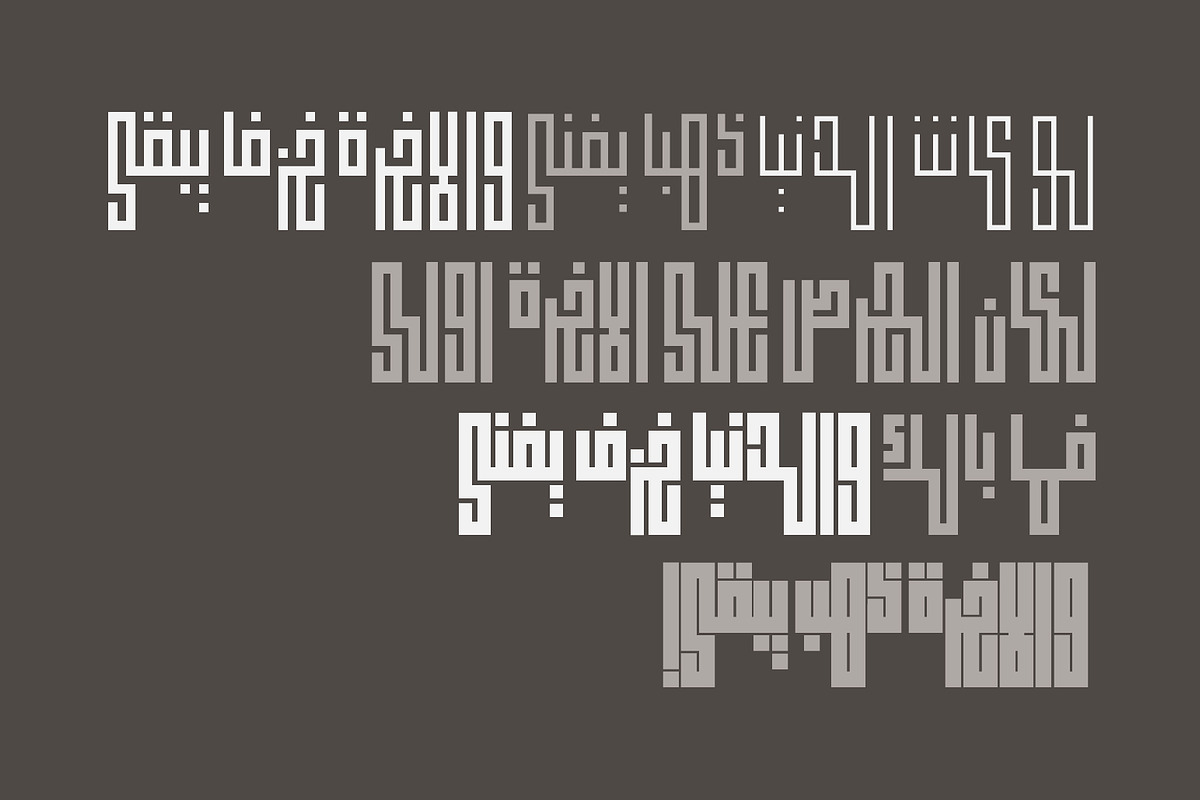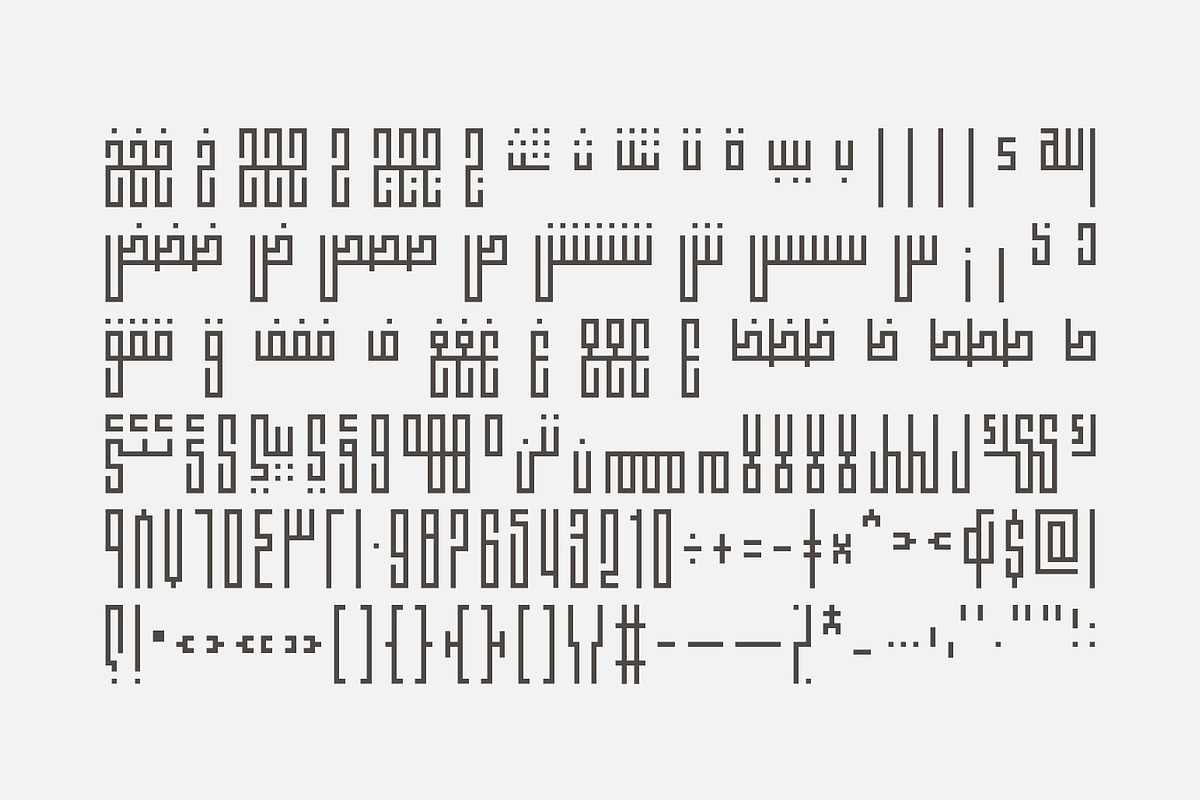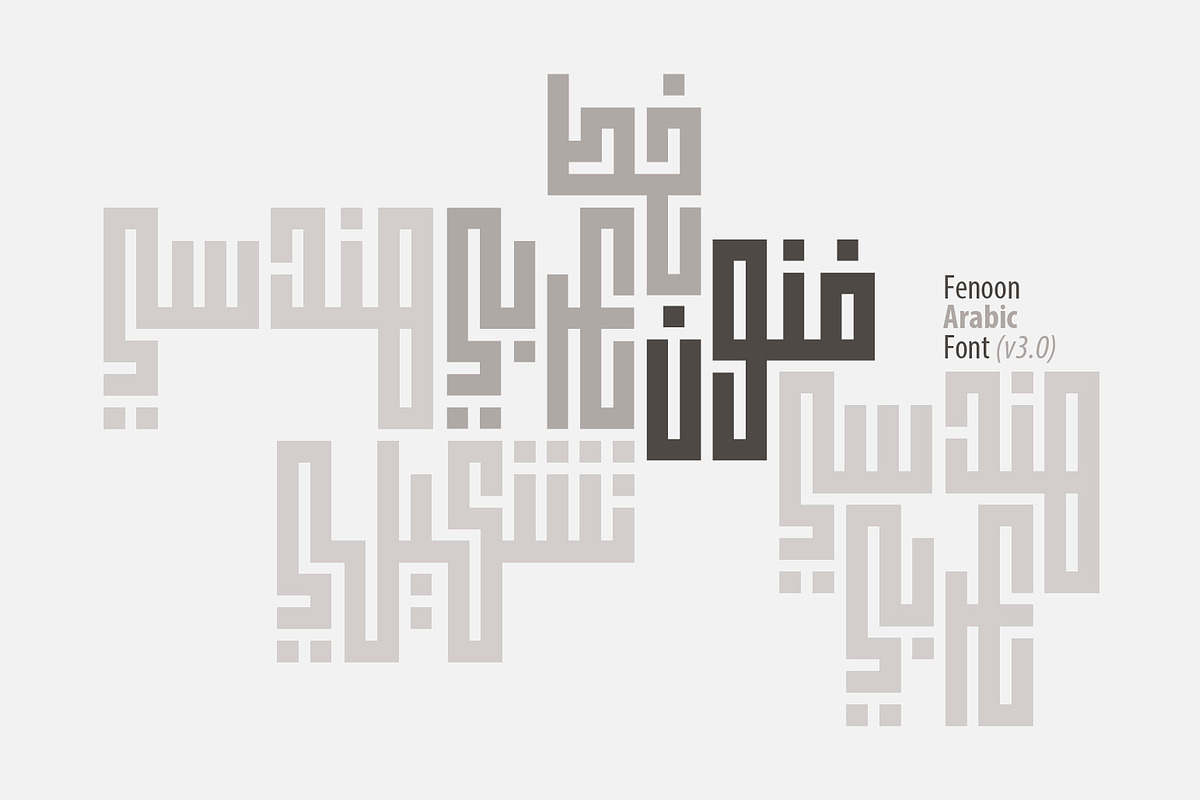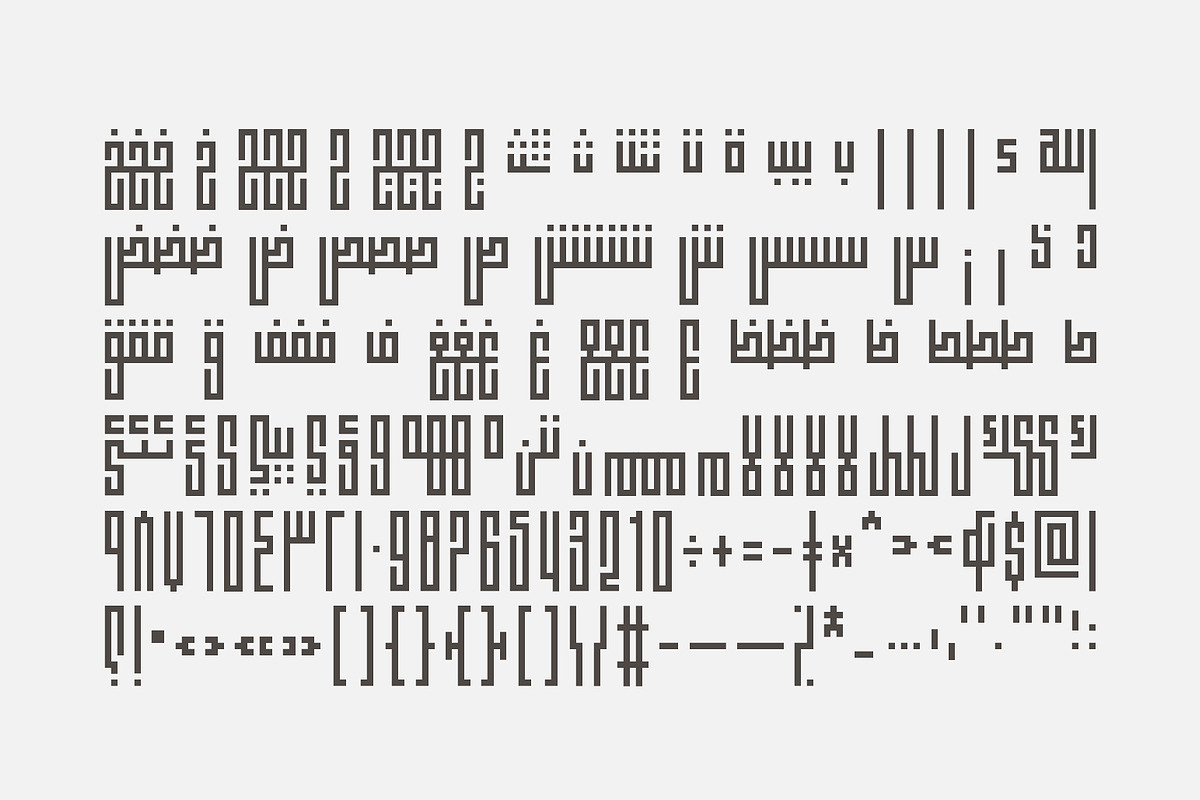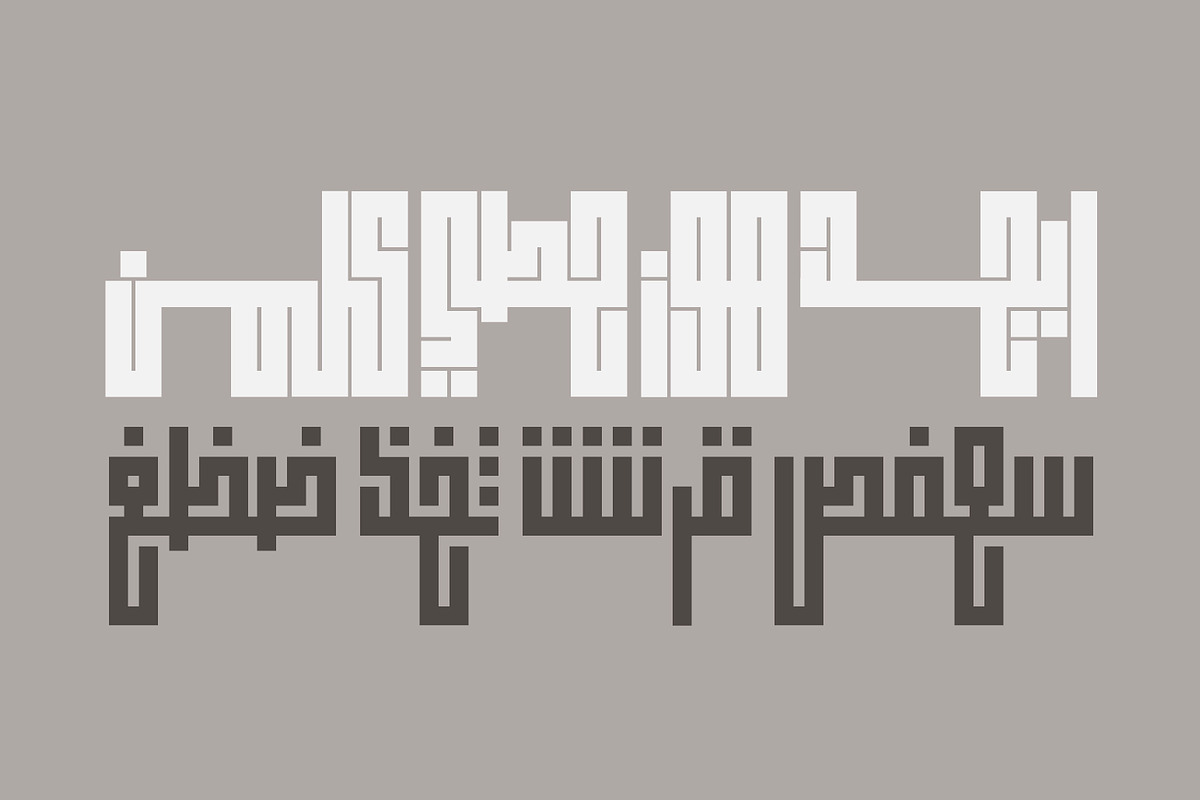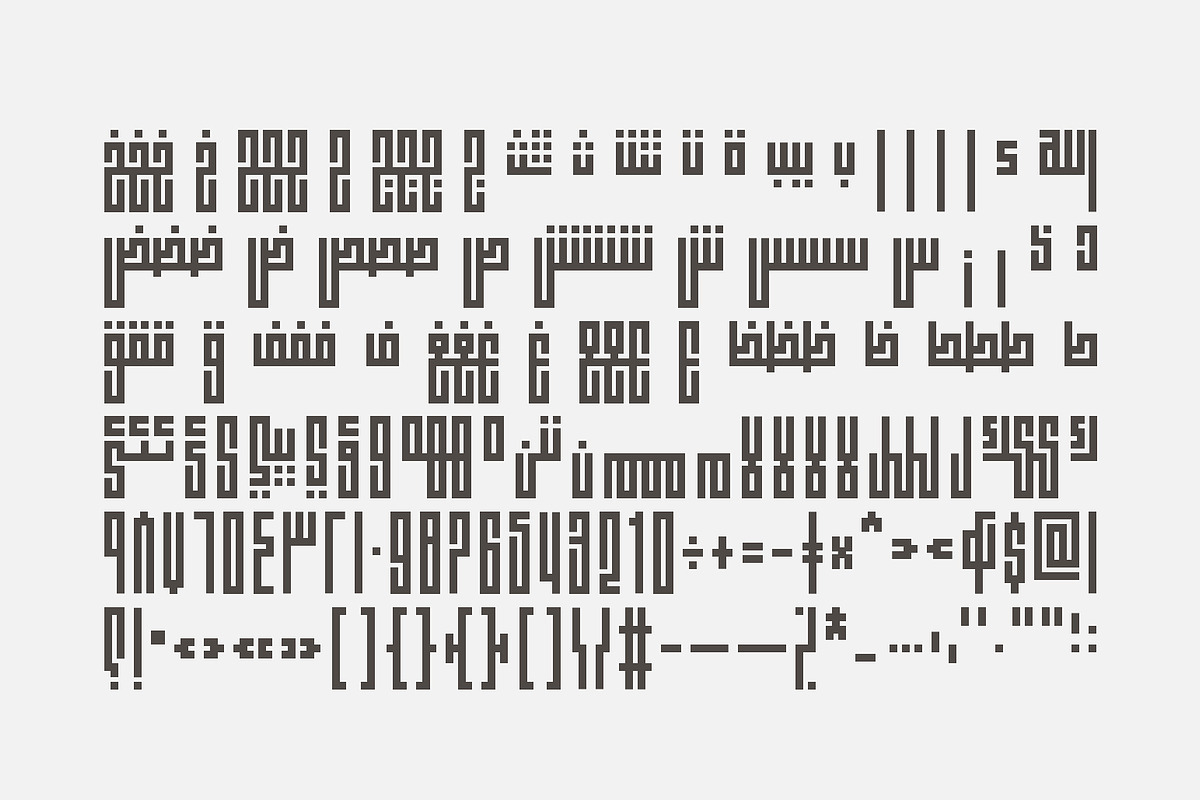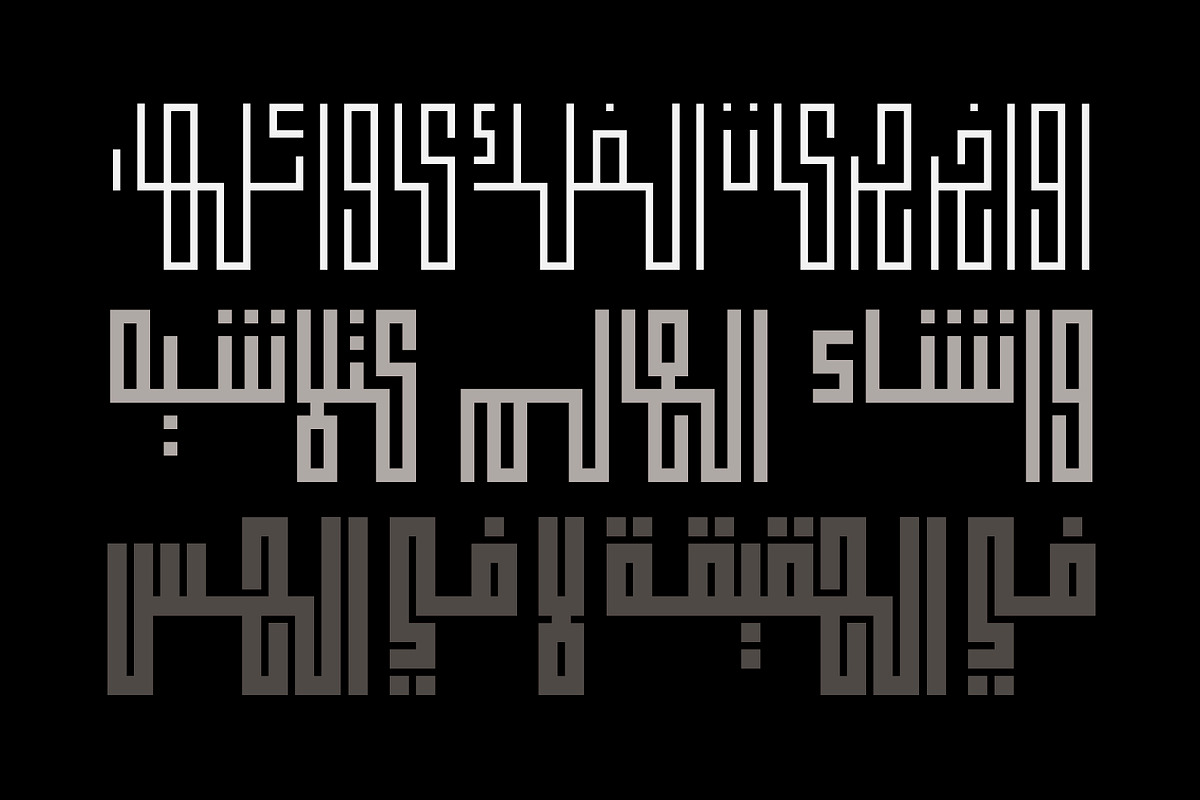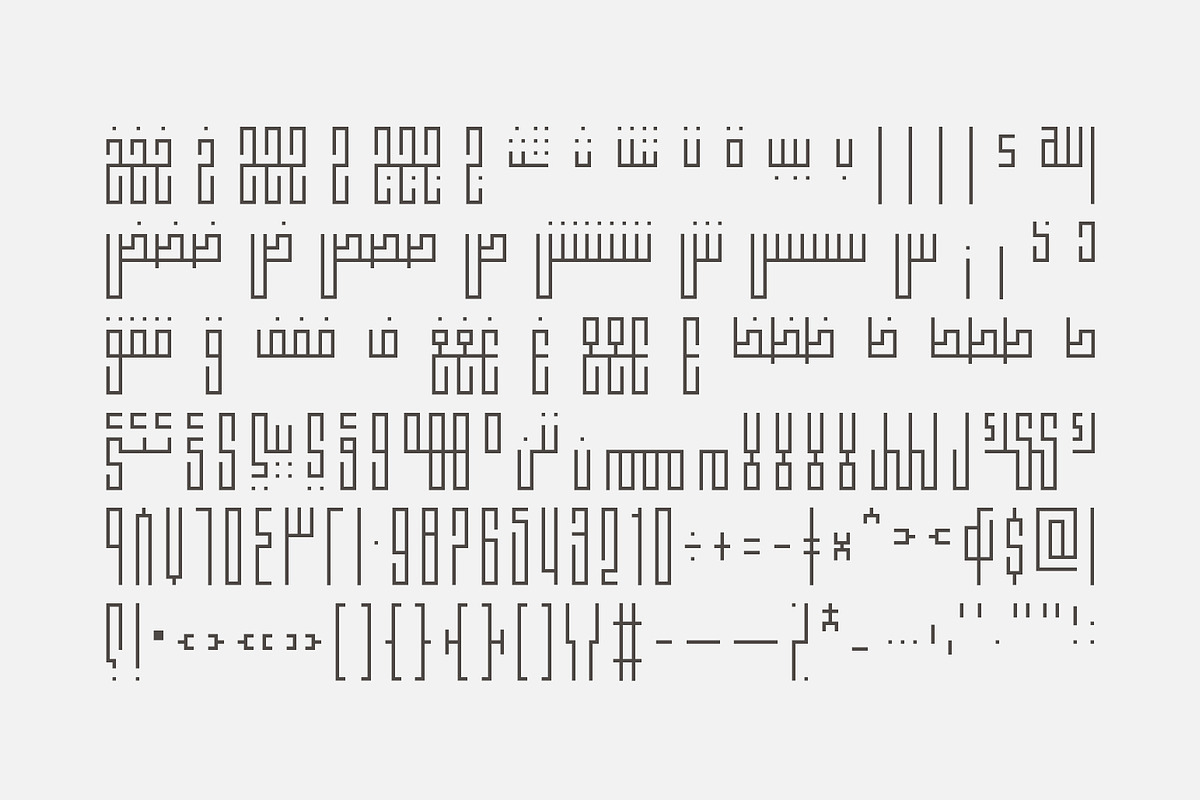
Fenoon - Arabic Font | خط فنون
Fenoon - Arabic Font | خط فنون by Mostafa El Abasiry is a font selected for branding, posters, packaging, typography.
Fenoon - Arabic Font | خط فنون by Mostafa El Abasiry fits naturally into Branding, posters, packaging, typography.